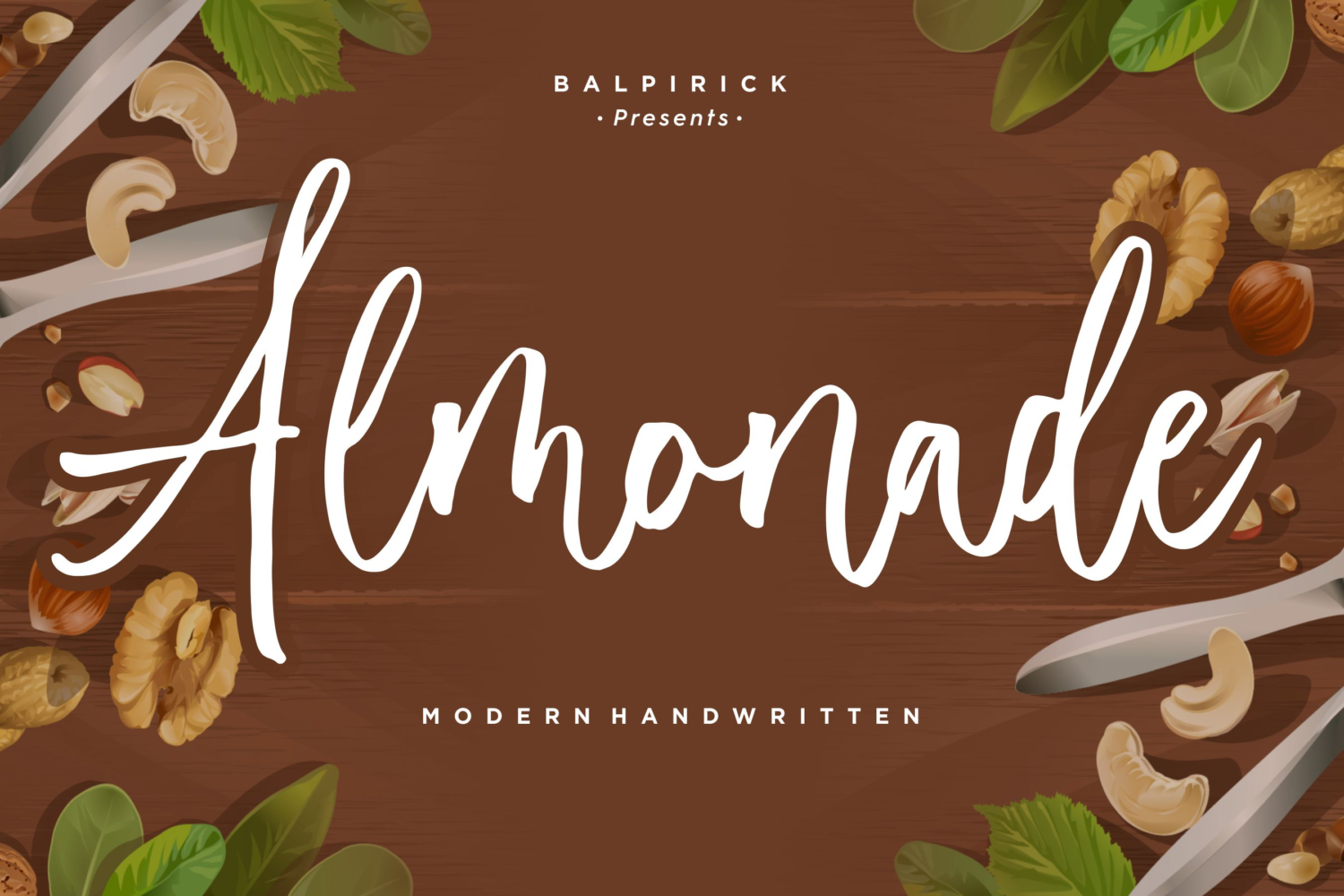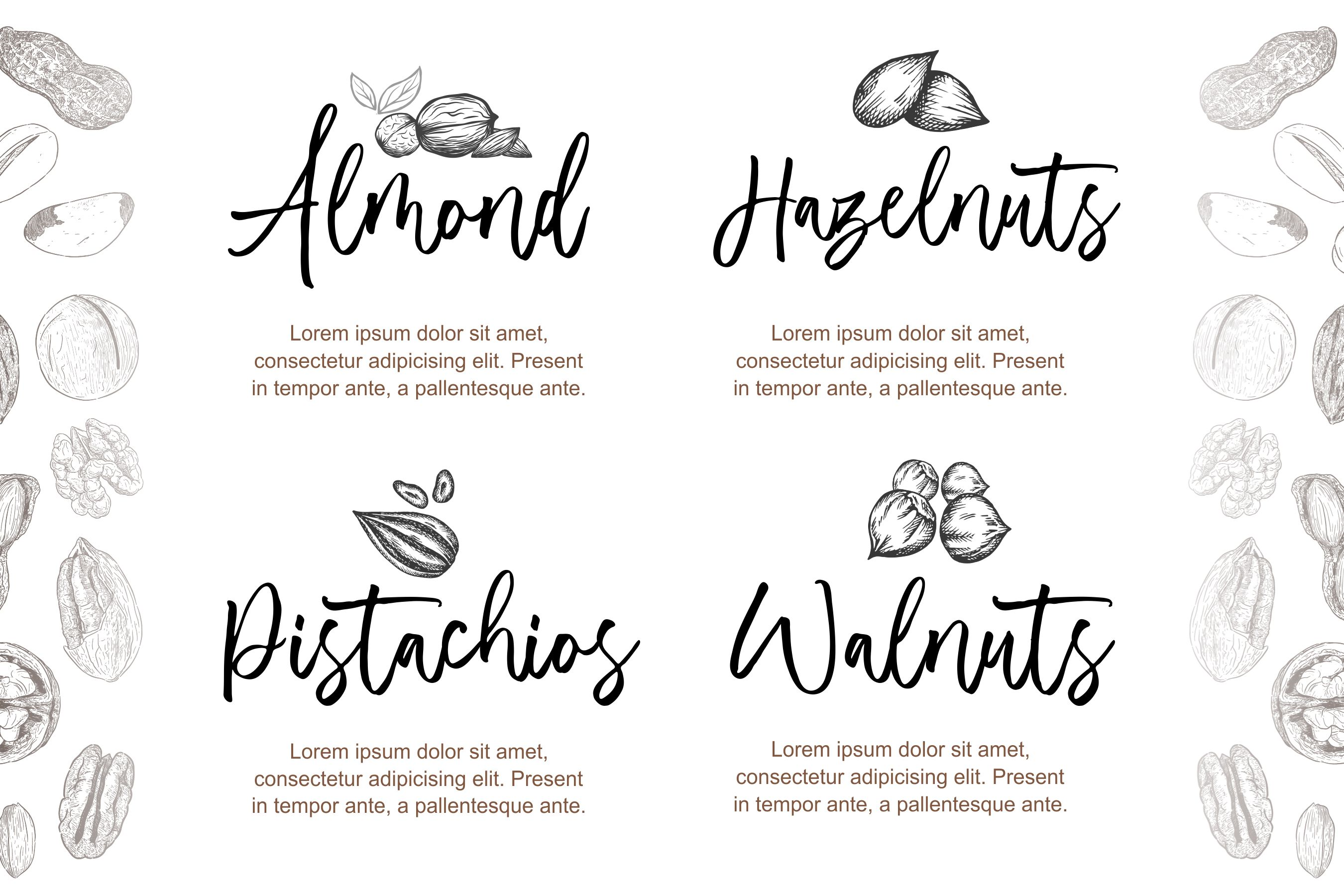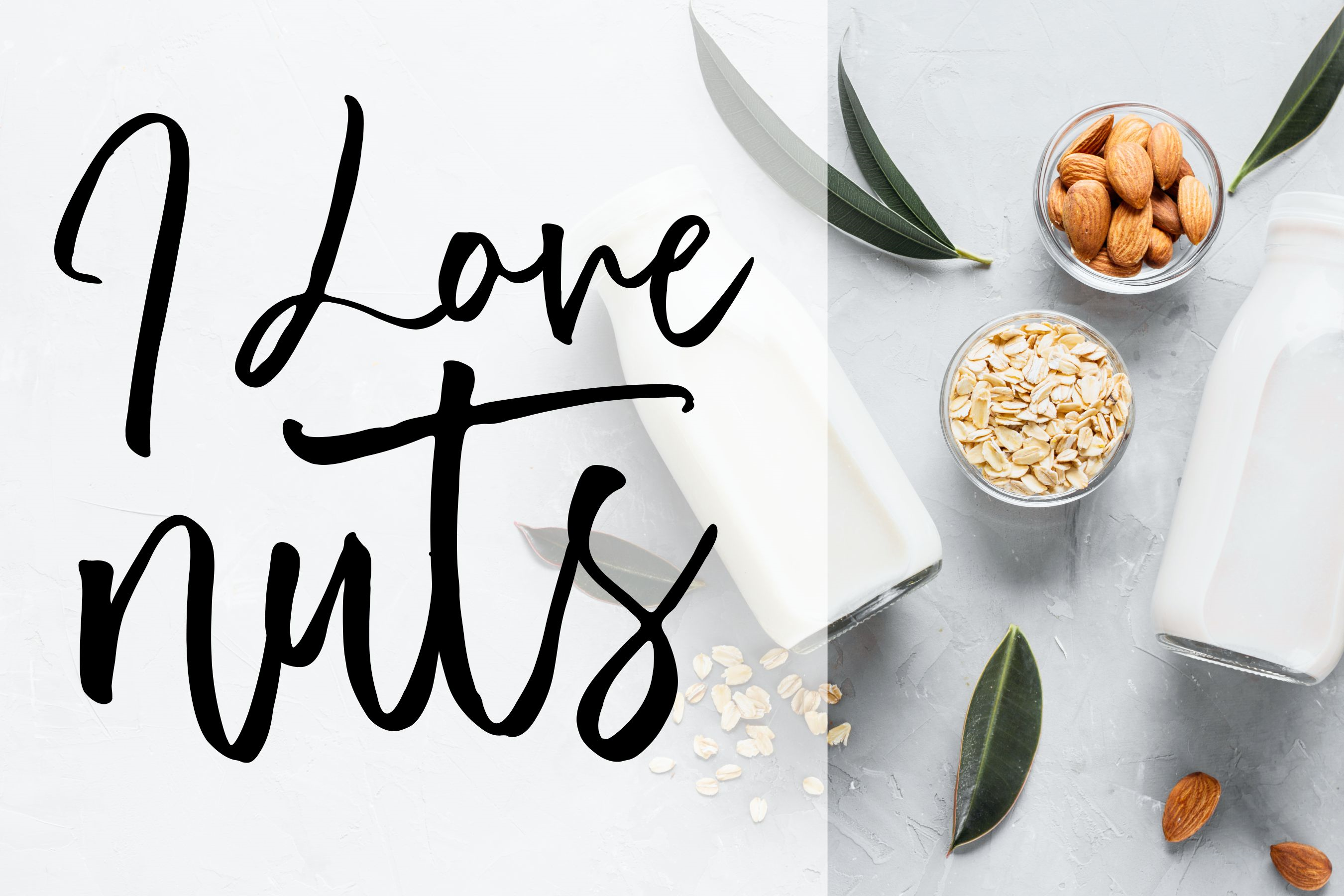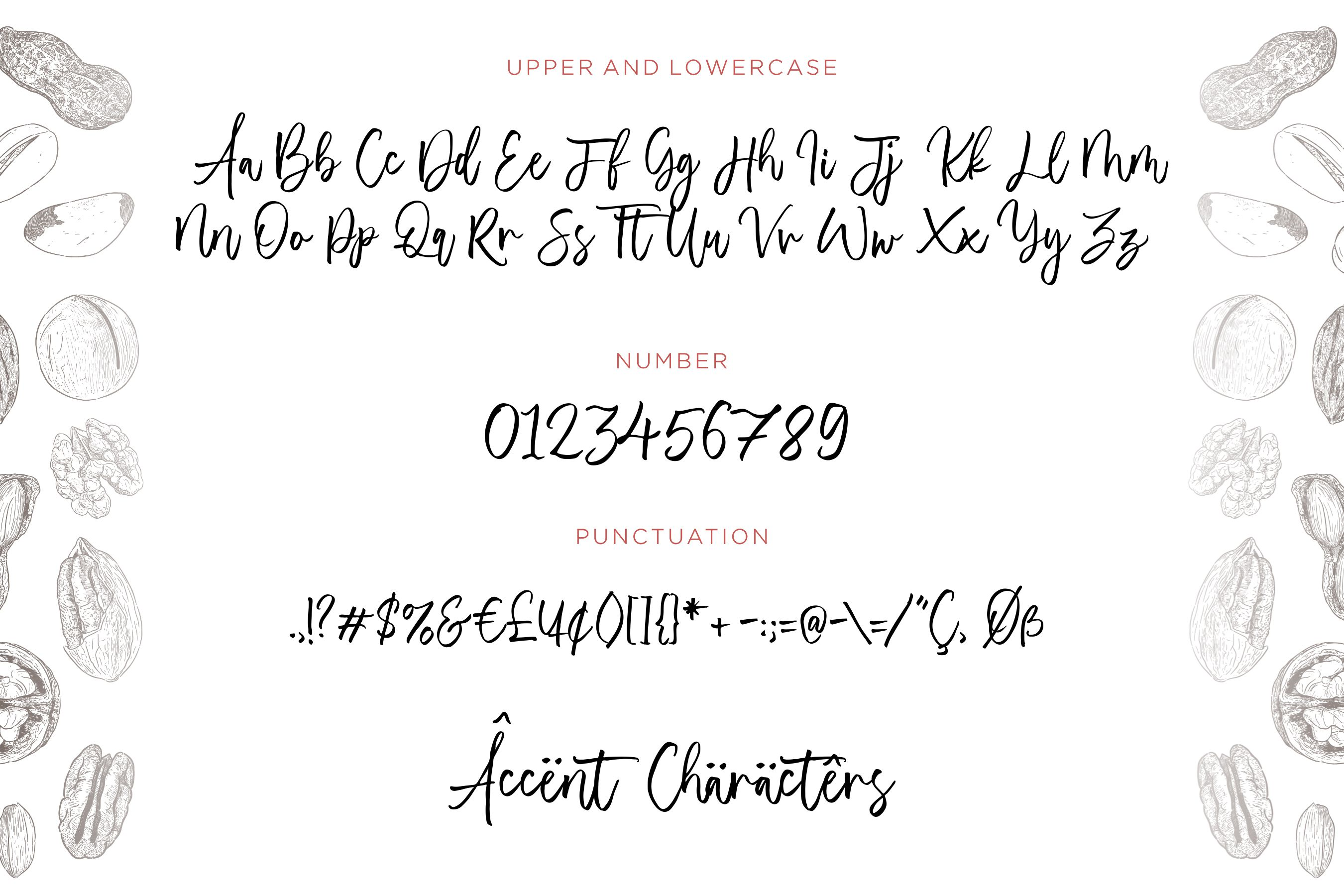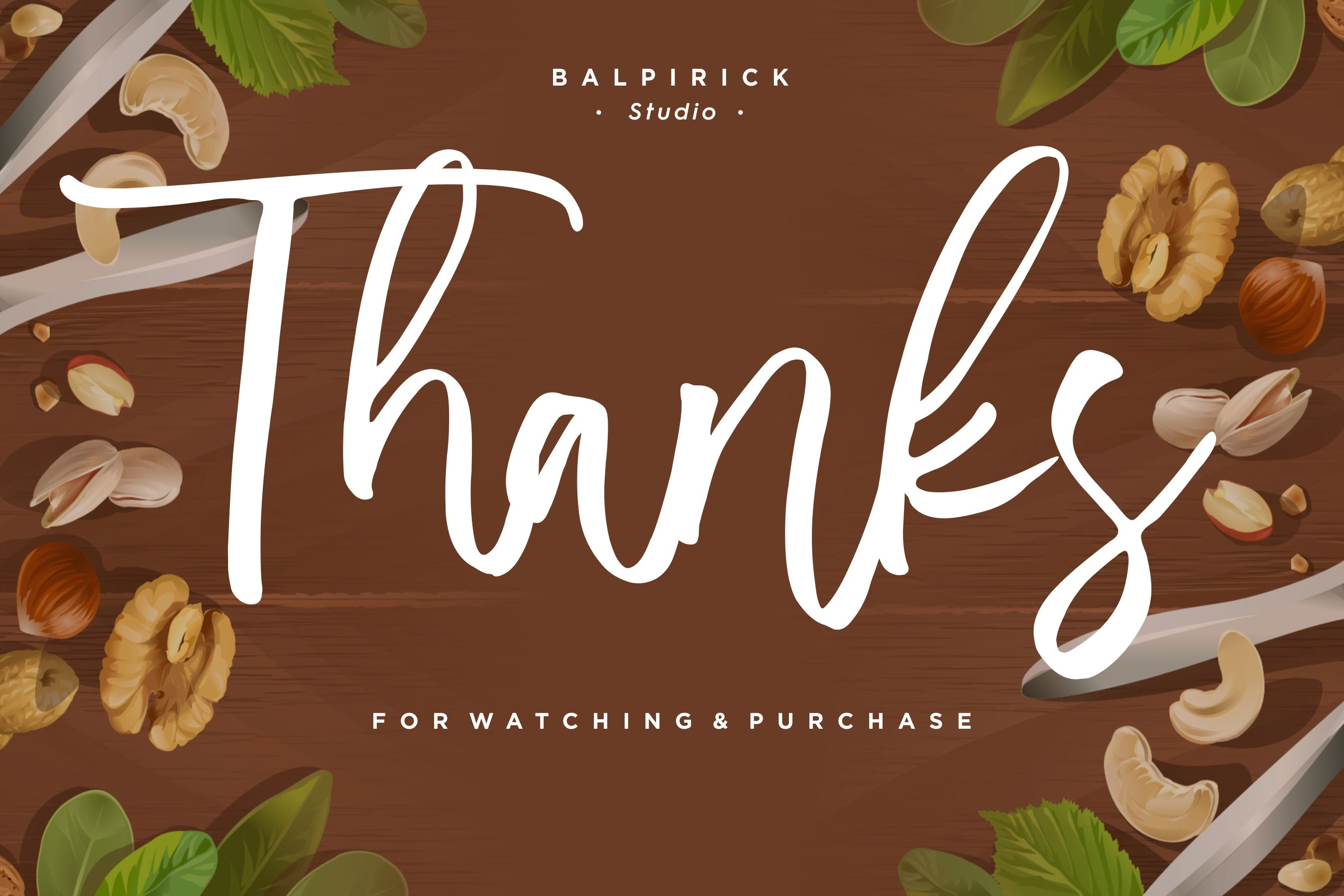
Almonade is a playful and elegant script font featuring fluid, hand-drawn letterforms with a natural, casual feel. Its varied stroke widths and slightly irregular shapes create a warm, inviting personality that works beautifully for creative branding, invitations, and personal projects. This font shines best in headlines and decorative uses where its charming, handwritten style can truly stand out.
Almonade Font
About Almonade Font
| Font family | Almonade Font |